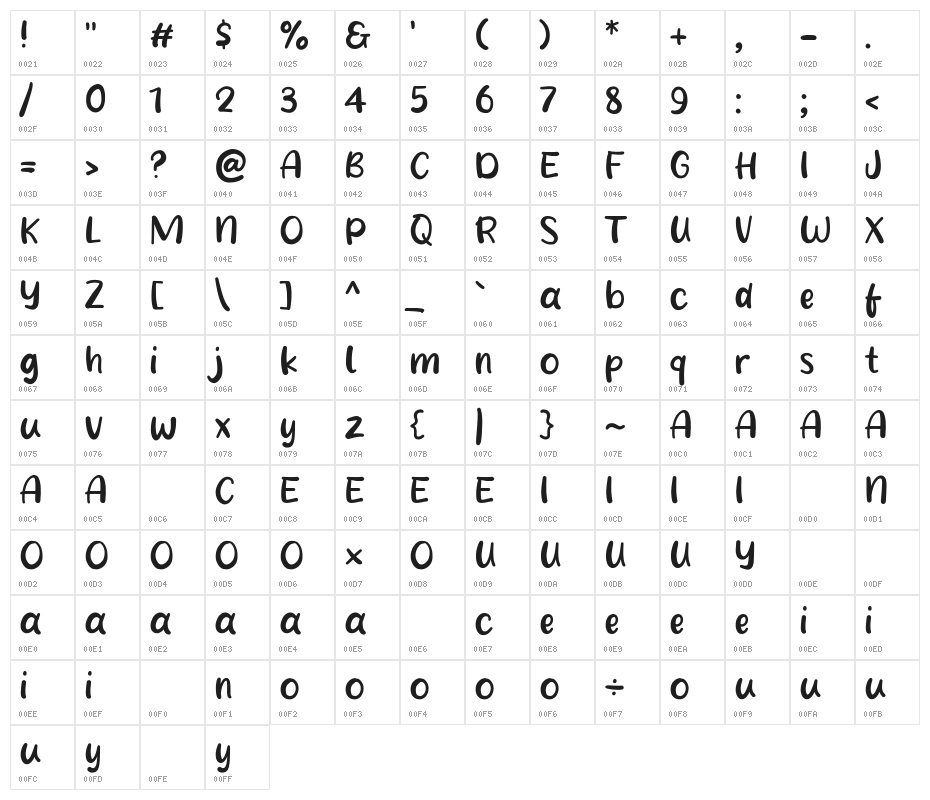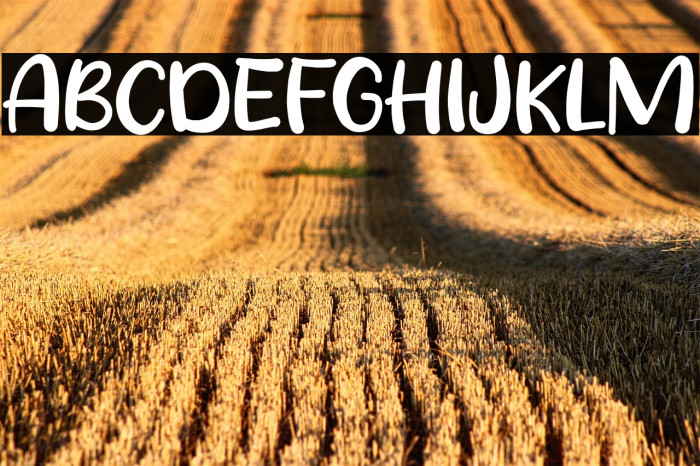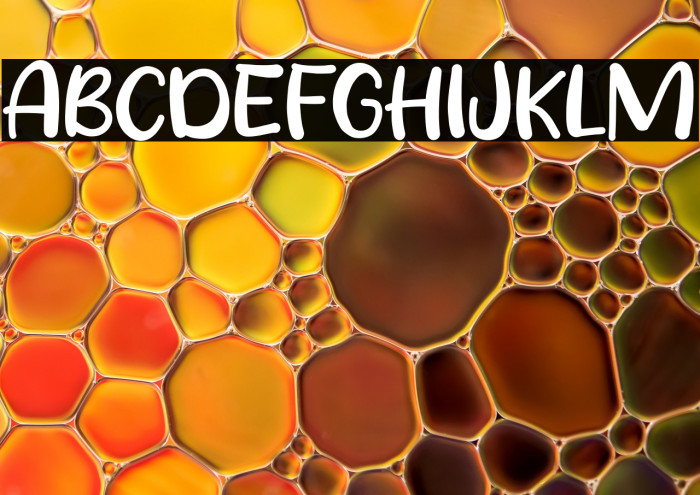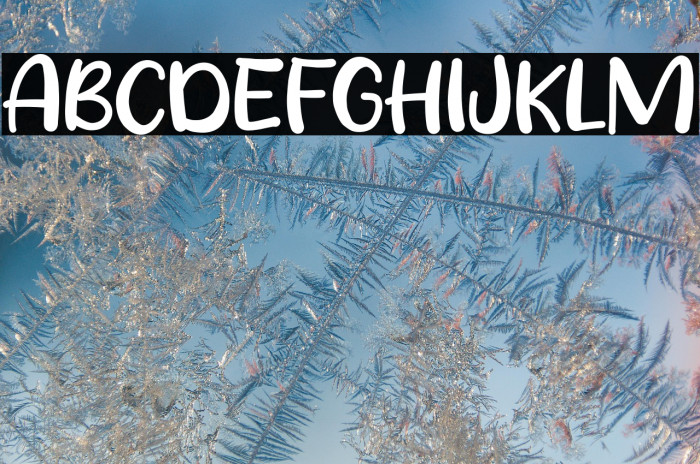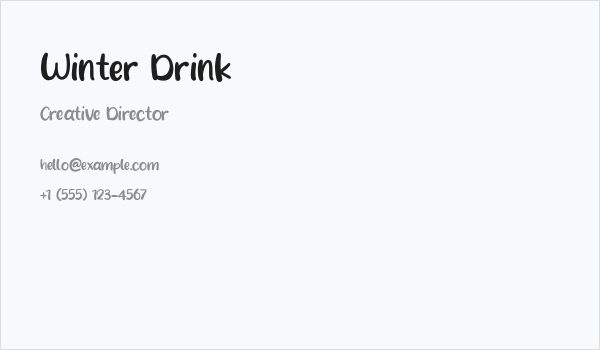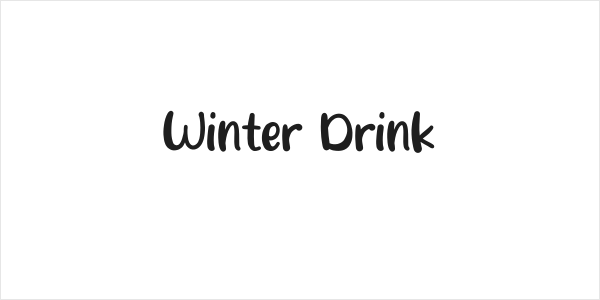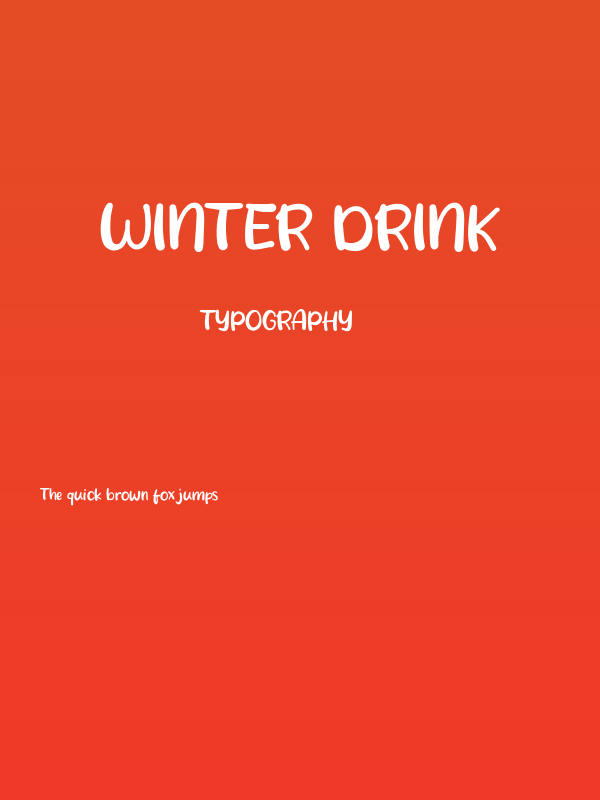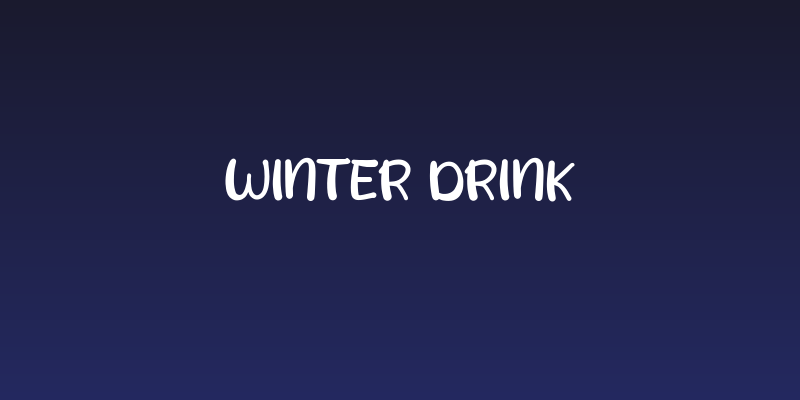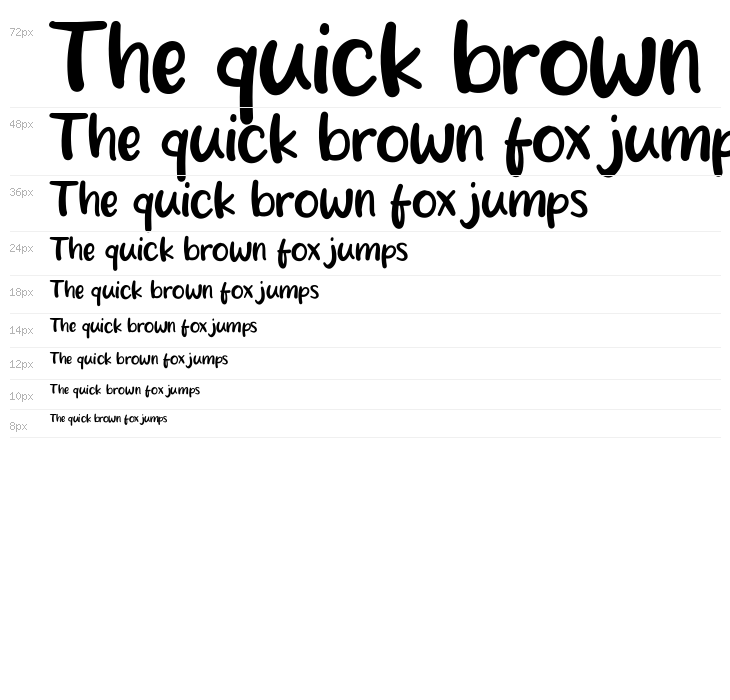
Winter Drink Font
Winter Drink Description
This playful and bold font features a handwritten style with rounded edges and a casual, friendly appearance. The letters are slightly irregular, adding a whimsical touch that enhances its charm. The uppercase and lowercase letters maintain a consistent flow, while the numbers and special characters integrate seamlessly with the overall design. The strokes are thick, providing a strong presence and making it highly legible even at smaller sizes. This font exudes a sense of warmth and approachability, making it ideal for creative and informal projects.
| Overall Style | Playful, Casual |
| Proposed Projects | Great for greeting cards, children's books, playful branding, and social media graphics. |